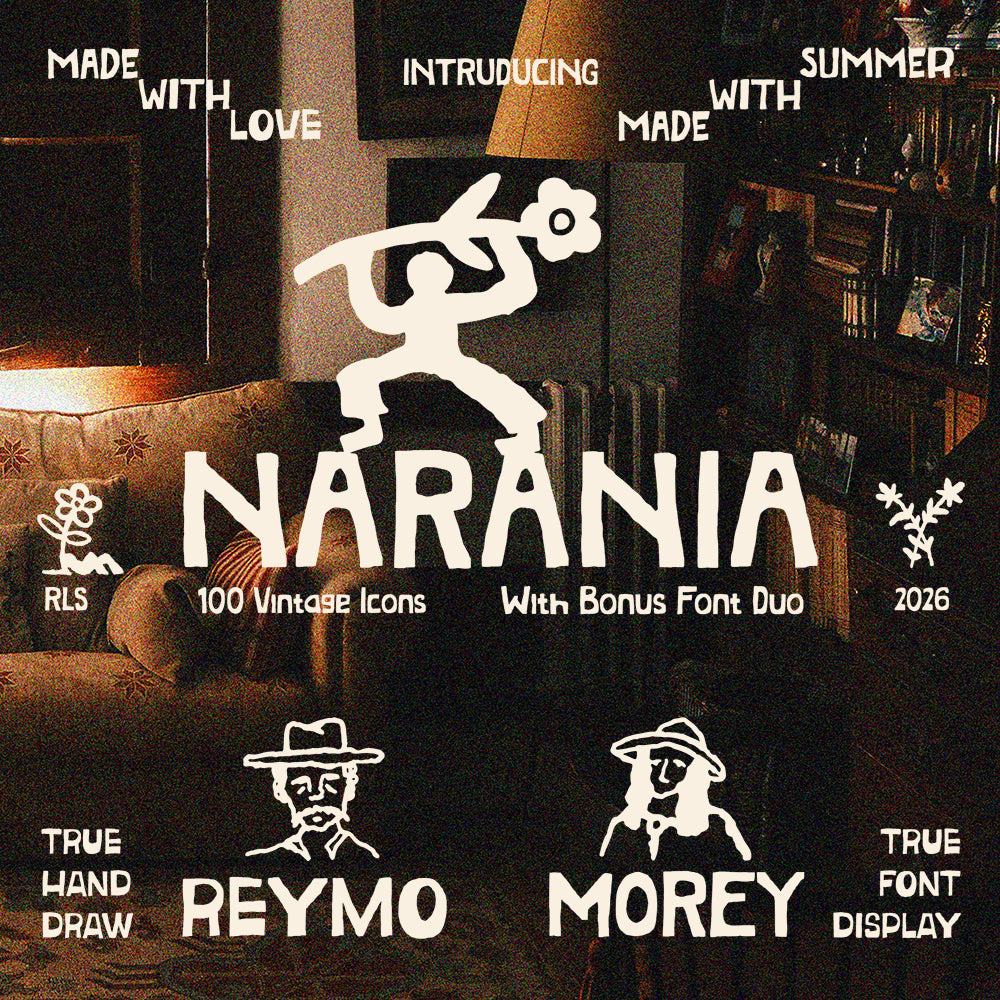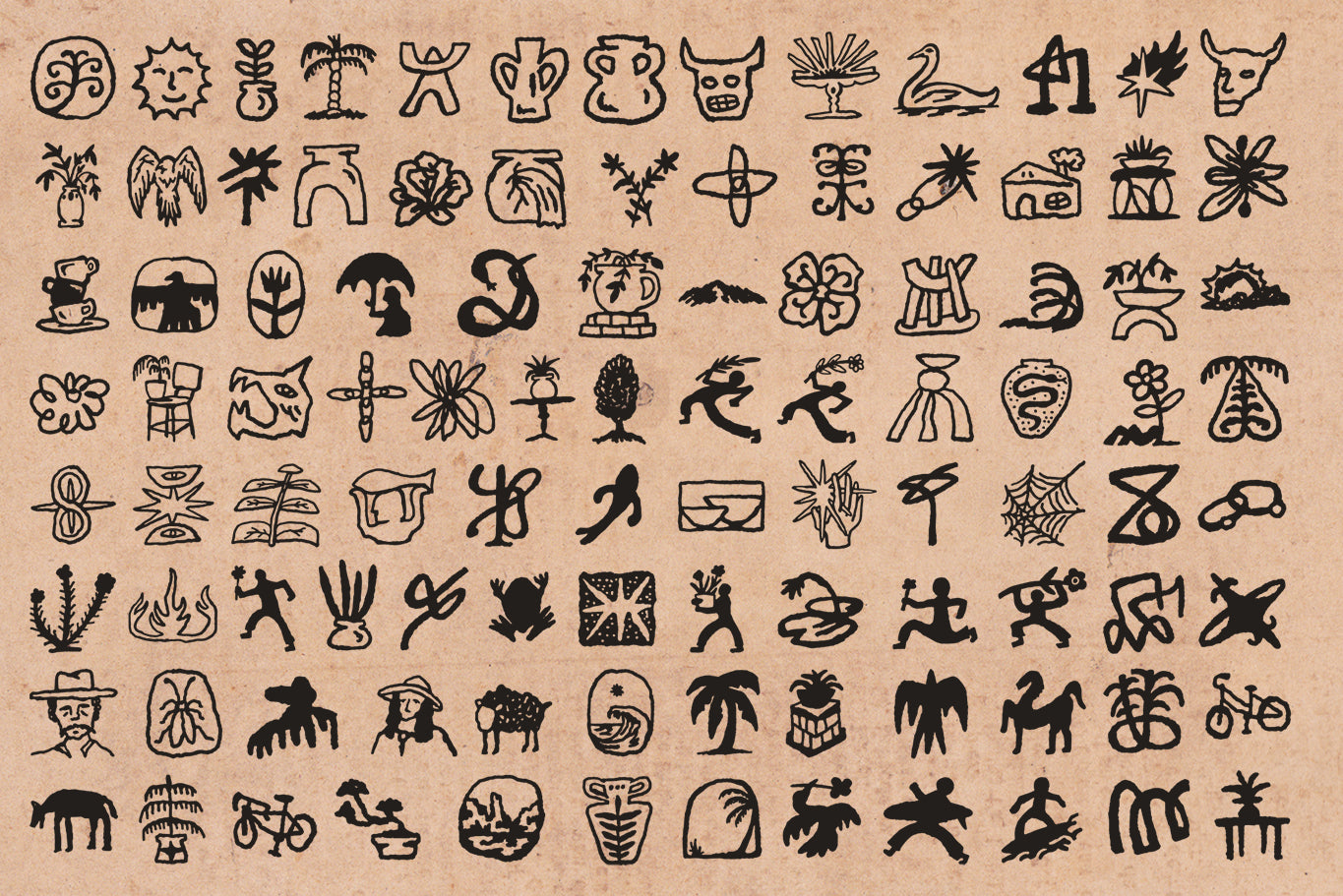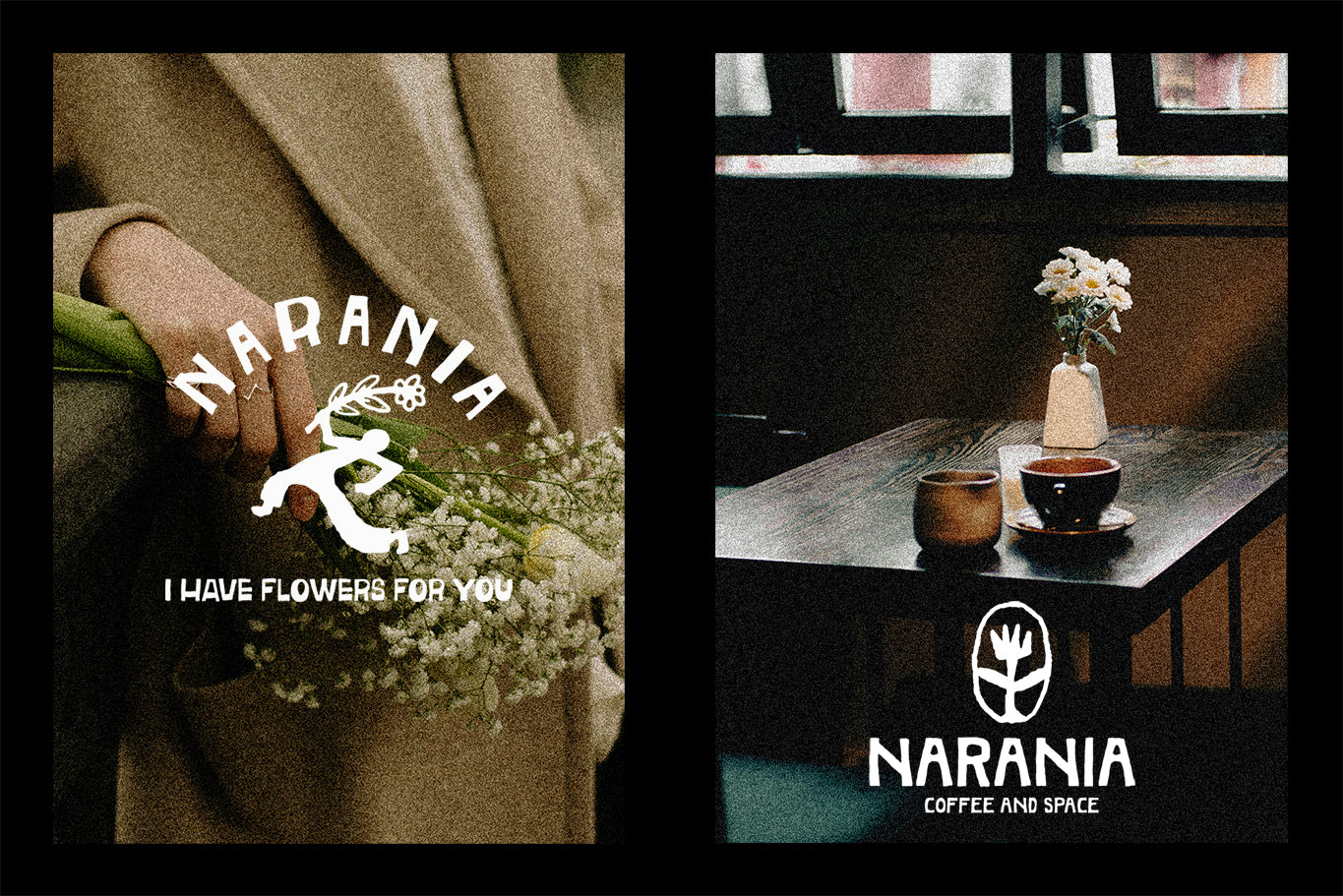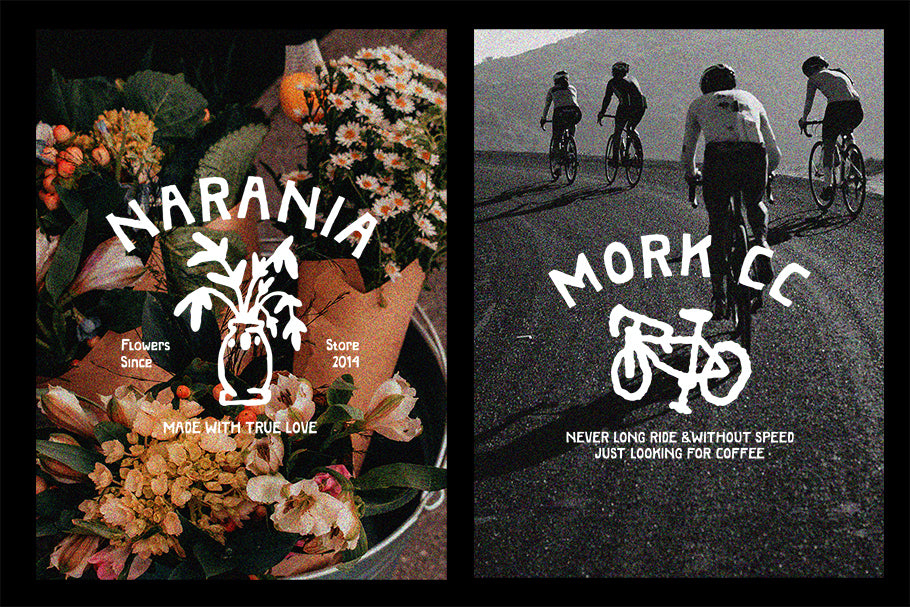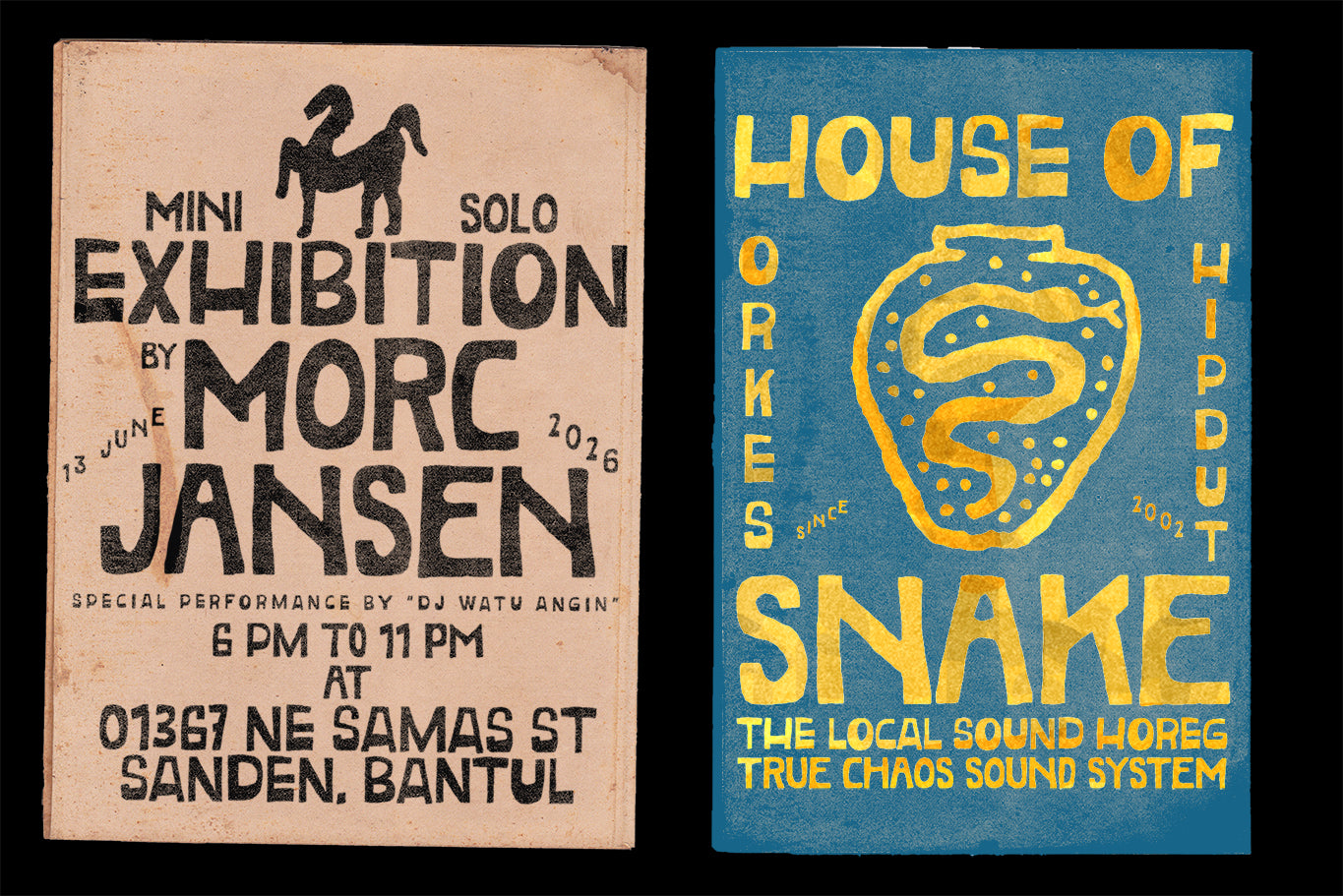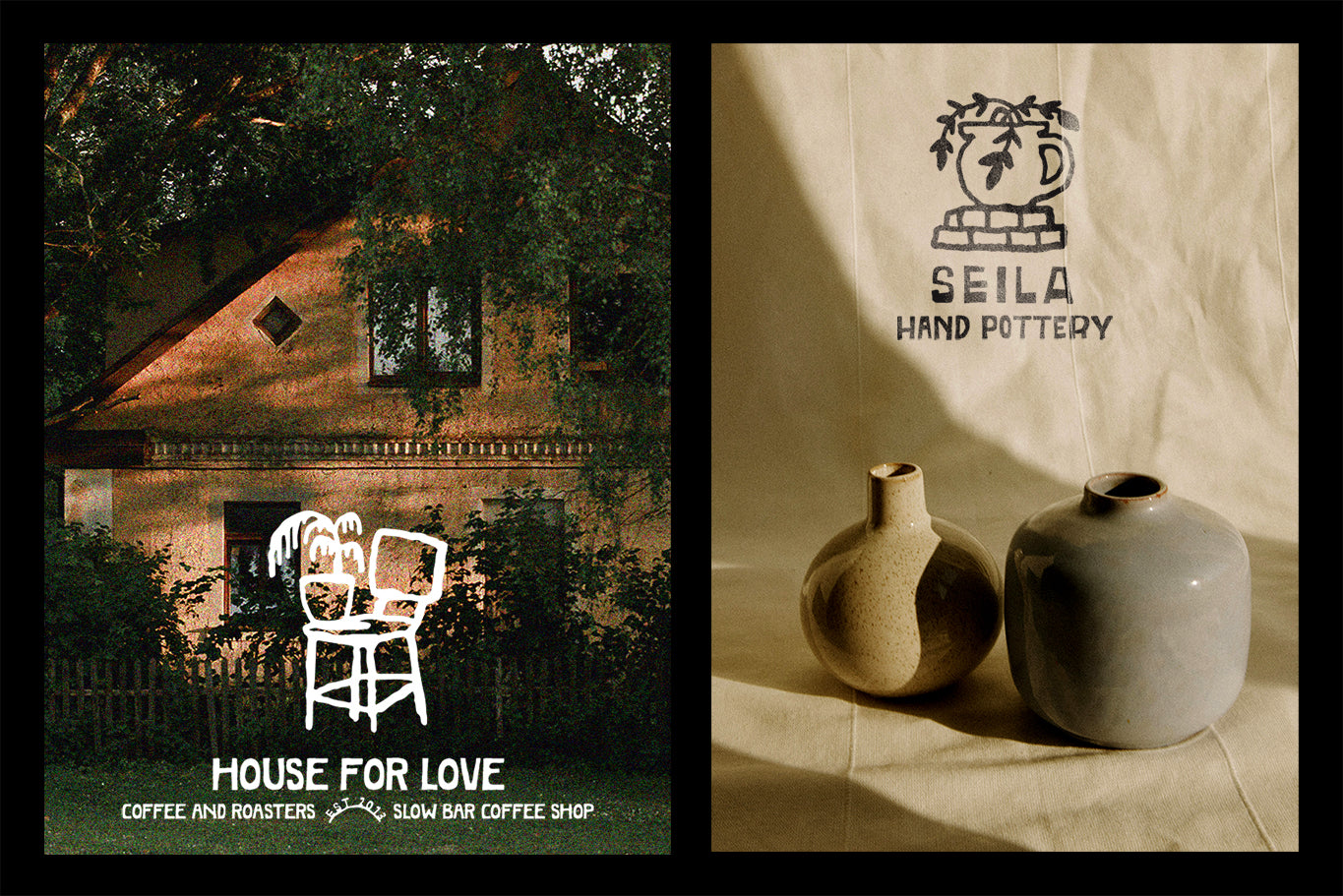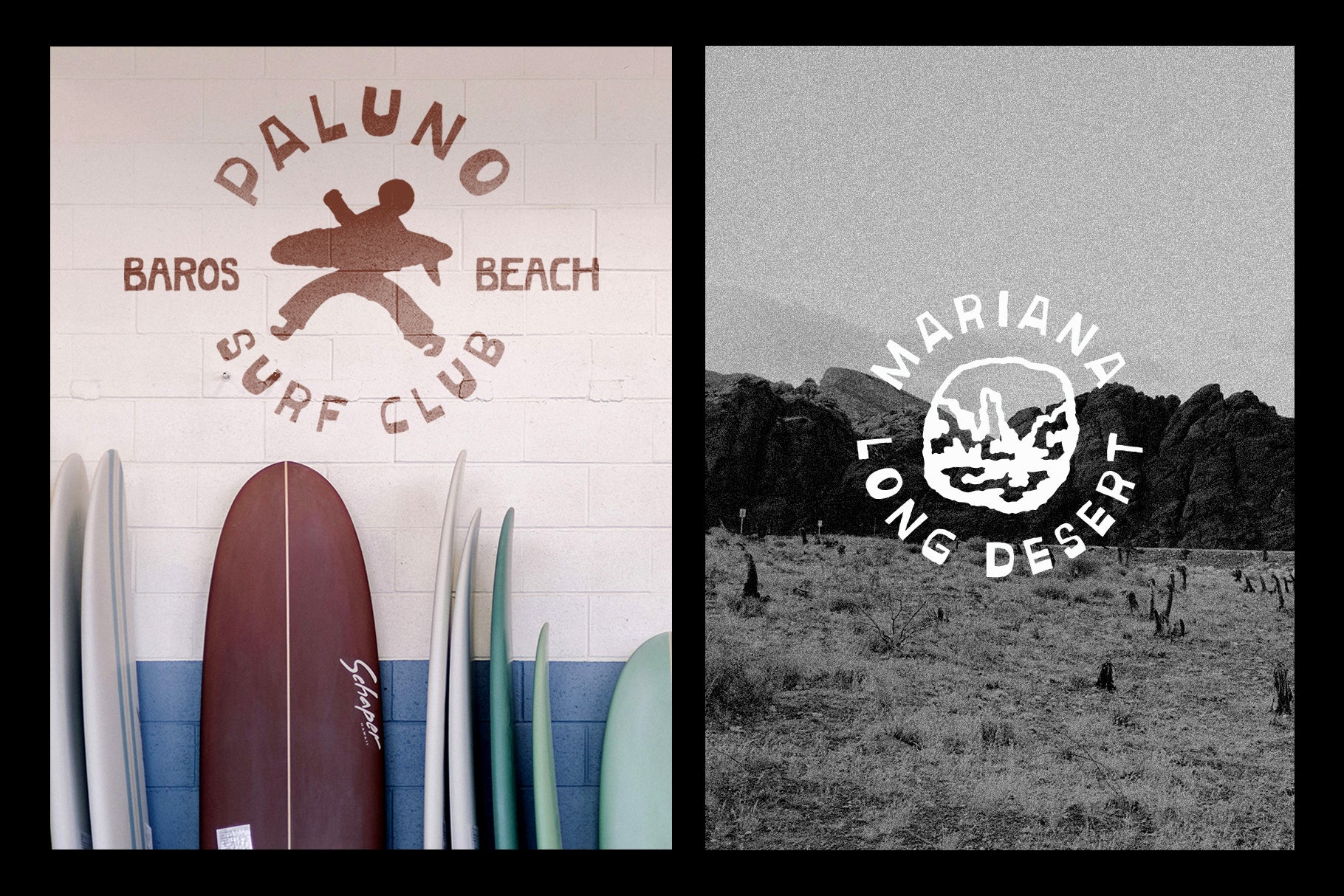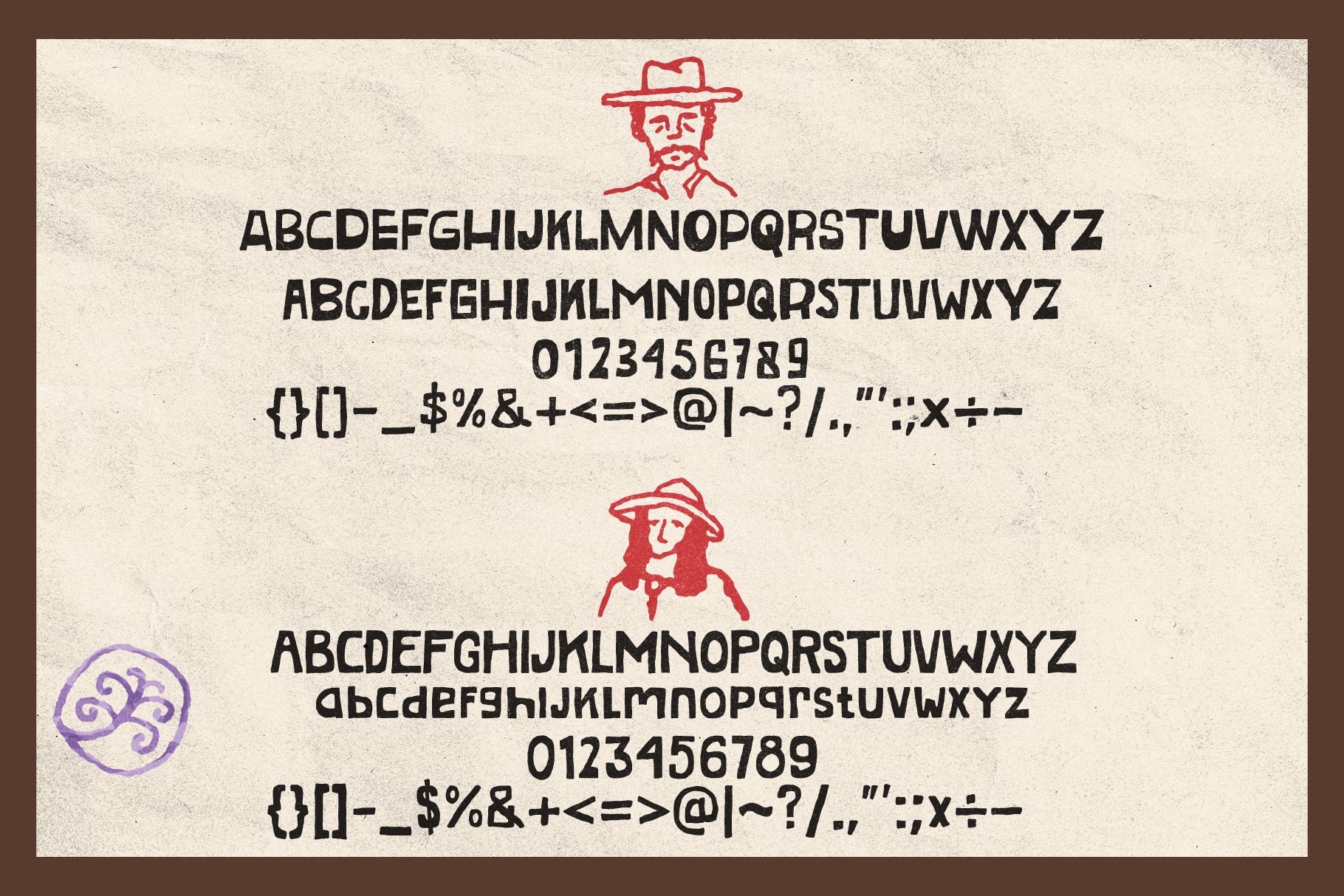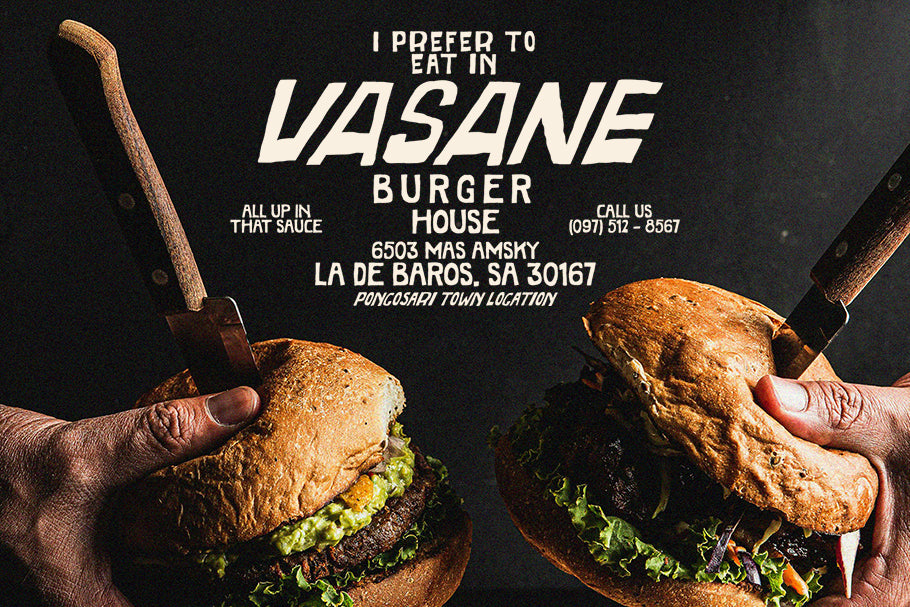
Vintage Icons + Bonus Font Duo
You can easily combine these 100 hand-drawn style vintage icons with the bonus "Reymo" & "Morey" font duo (display fonts). Available in Adobe Illustrator, PNG, and PDF formats, they are simple to mix and match, so have fun experimenting!
This package includes 100 hand-drawn style vintage icons and a bonus "Reymo" & "Morey" display font duo, available in Adobe Illustrator, PNG, and PDF formats. The icons and fonts are designed to be mixed and matched, and the files are compatible with Adobe Illustrator.